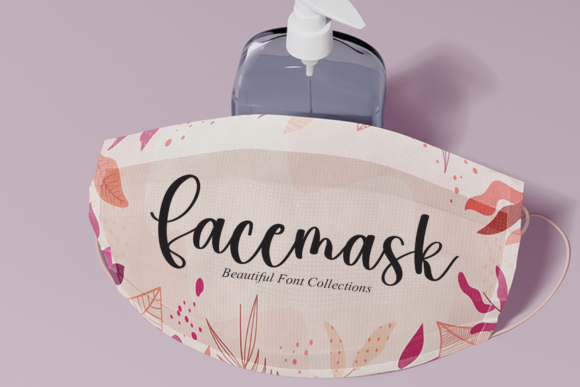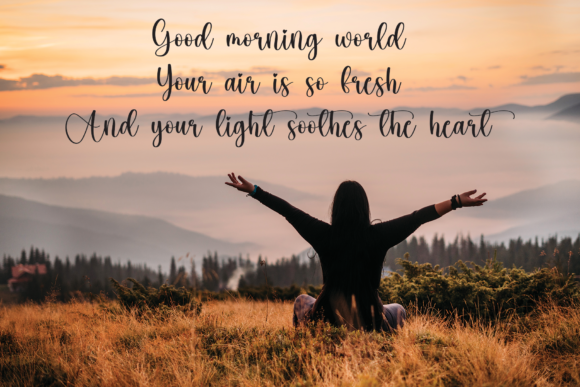
Hello Amellia Font
db-ku.com - Script & Handwritten -- Hello Amellia is a sweet, whimsical, flowing and thin script font. Featuring characters that dance along the baseline, this font will add a luxury spark to any design project that you wish to create!